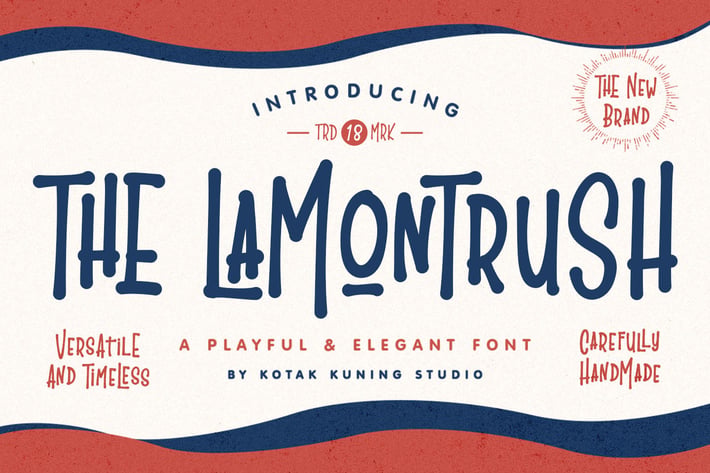
The Lamontrush Vintage Font
Introducing The Lamontrush is a playful and elegant classic typeface. It has a unique and different style and will give your design a classic touch.
The Lamontrush would be perfect to use in logotype/wordmark, badge, signboard, poster, headline text, apparel, wedding invitation, etc.